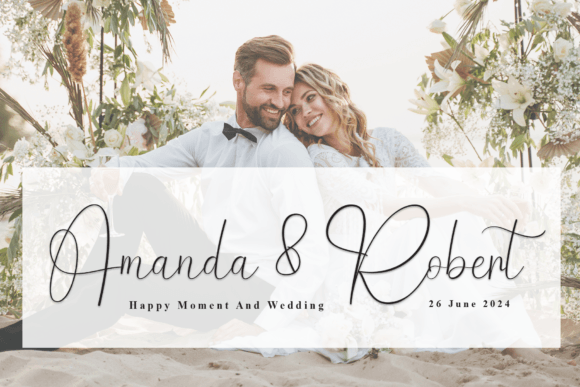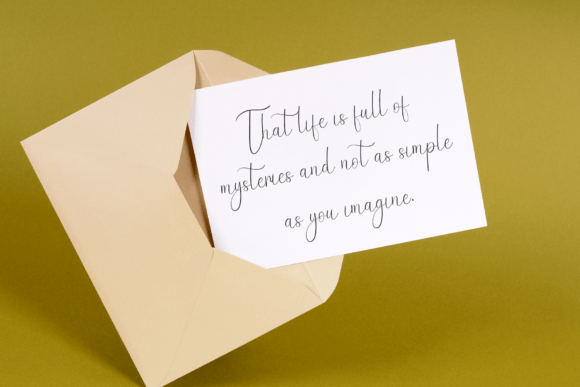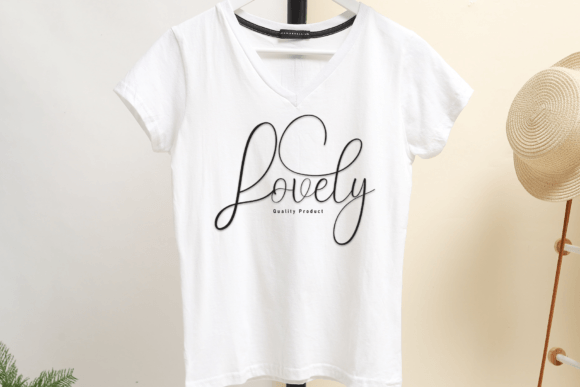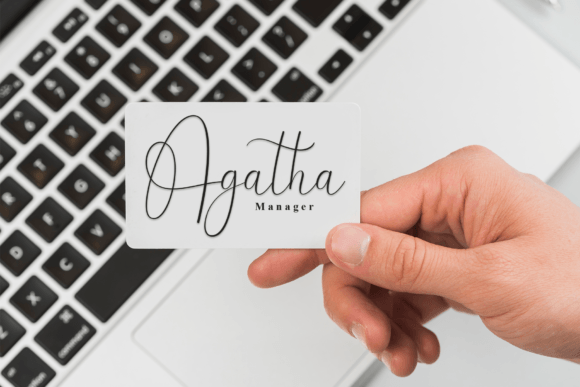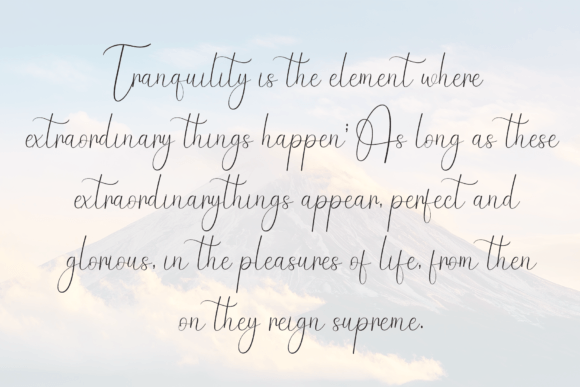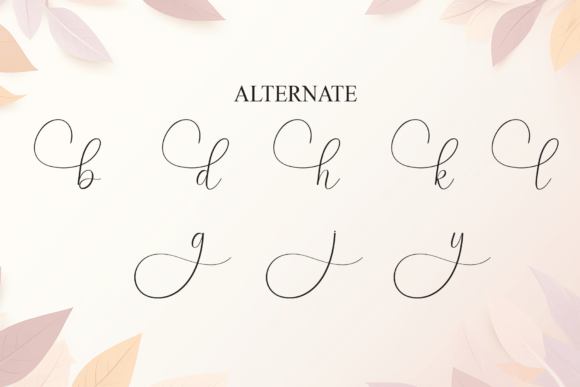
The Perfect Brush Stroke for Your Design
Have you ever been stuck in front of your computer, staring at a blank canvas, waiting for inspiration to strike? We’ve all been there. But what if that spark of creativity was just a few keystrokes away? For designers, finding the right font can be the difference between a mediocre design and a masterpiece. That’s where Background Font comes in – a beautiful, timeless handwritten font that adds a touch of elegance to any project.
Whether you’re creating a logo, branding, or quote, Background Font is the perfect choice to bring your design to life. With its unique and beautiful touch, every letter is a work of art. As a designer, you know how valuable it is to have a versatile font that can elevate your work and make it stand out. Background Font is that font – a game-changer that will take your designs to the next level.
Background Font Review
Tips for Getting the Most Out of Background Font
Use a bold font to create a dramatic effect.
Experiment with different font sizes and colors to create a unique design.
Use background font to add texture and depth to your design.
Background font is commonly used in:
Business cards and brochures.
Wedding invitations and event materials.
Marketing materials and advertisements.